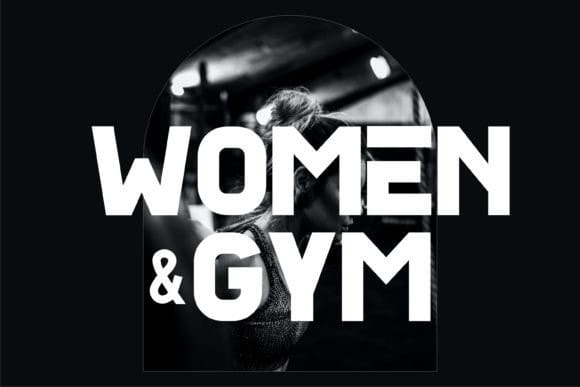
New Kidz Font
New Kidz Font is a font with a futuristic, modern and manly theme, this font is very appropriate for use in logo designs for sports, automotive and male themes. This font has been created in a youthful, strong, professional, active and hardworking style.